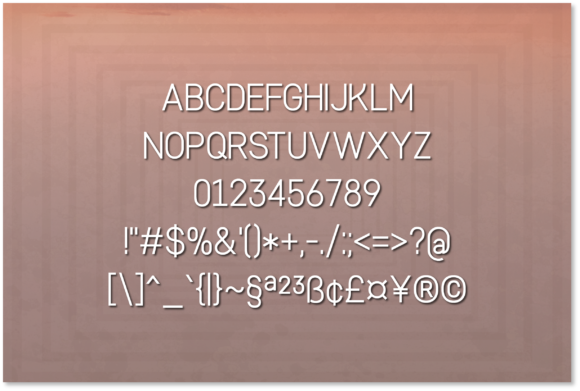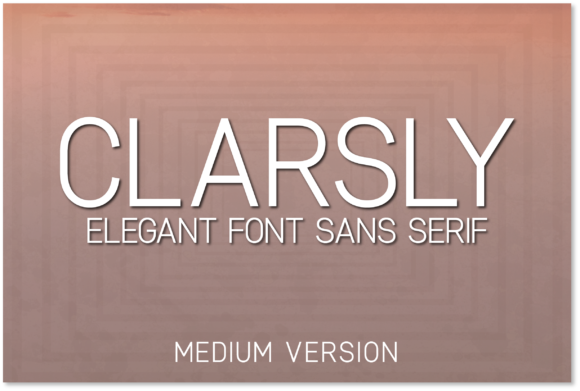
Discover the Elegance of Clarsly Medium Font: A Versatile Sans Serif for Modern Designs
In the world of typography, finding the perfect font that balances modernity with elegance can be a daunting task. However, if you’re looking for a font that embodies minimalist sophistication and versatility, look no further than the Clarsly Medium Font. This stunning sans serif font is designed to elevate your designs, whether you’re working on body text or crafting attention-grabbing headlines. With its timeless appeal, Clarsly Medium Font is poised to become your go-to choice for a wide range of design projects.
The Characteristics of Clarsly Medium Font
Clarsly Medium Font is characterized by its clean lines, simple shapes, and a contemporary feel that resonates with modern design trends. Its minimalist approach doesn’t compromise on elegance; instead, it enhances the font’s versatility, making it suitable for various applications. Here are some key features that make Clarsly Medium Font stand out:
- Minimalist and Modern: The font’s design is stripped down to its essential elements, giving it a sleek and modern look that’s perfect for designs that require a fresh and current feel.
- Elegant Touch: Despite its minimalist nature, Clarsly Medium Font exudes elegance, making it ideal for projects that demand a sophisticated look.
- Versatile: This font is incredibly versatile, seamlessly transitioning from body text to headlines. Its adaptability makes it a valuable asset for any designer looking to maintain consistency across different design elements.
- Timeless Appeal: The design of Clarsly Medium Font is crafted to stand the test of time. It avoids trends that may quickly become outdated, ensuring your designs remain relevant for years to come.
Applications of Clarsly Medium Font
The versatility of Clarsly Medium Font means it can be used in a multitude of design projects. Here are some of the areas where this font truly shines:
- Digital Media: For websites, blogs, and social media content, Clarsly Medium Font offers a professional and modern look that can help engage your audience.
- Print Design: Whether you’re designing brochures, posters, or business cards, this font provides the perfect balance of modernity and elegance.
- Branding: Establishing a strong brand identity is crucial, and Clarsly Medium Font can play a pivotal role in creating a consistent and sophisticated visual brand language.
- Packaging: For product packaging, the font’s clarity and elegance can help your product stand out on crowded shelves.
Why Choose Clarsly Medium Font?
With so many fonts available, why should Clarsly Medium Font be your top choice? Here are a few compelling reasons:
- Legibility: The font’s design prioritizes legibility, ensuring your message is communicated clearly and effectively.
- Emotional Connection: The elegance and modernity of Clarsly Medium Font can help create an emotional connection with your audience, enhancing the impact of your design.
- Efficiency: Having a versatile font like Clarsly Medium Font at your disposal can streamline your design process, saving you time and effort.
Clarsly Medium Font is more than just a typeface; it’s a design solution that combines the simplicity of minimalist design with the sophistication of modern typography. Its versatility, elegance, and timeless appeal make it an invaluable resource for designers and crafters looking to elevate their projects. Whether you’re working on digital media, print design, branding, or packaging, Clarsly Medium Font is guaranteed to add a touch of class and professionalism to your work. Embrace the elegance of Clarsly Medium Font in your next design project and experience the difference it can make.